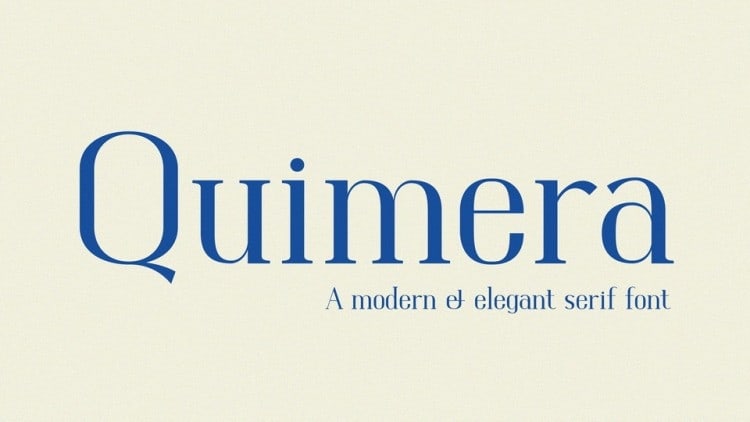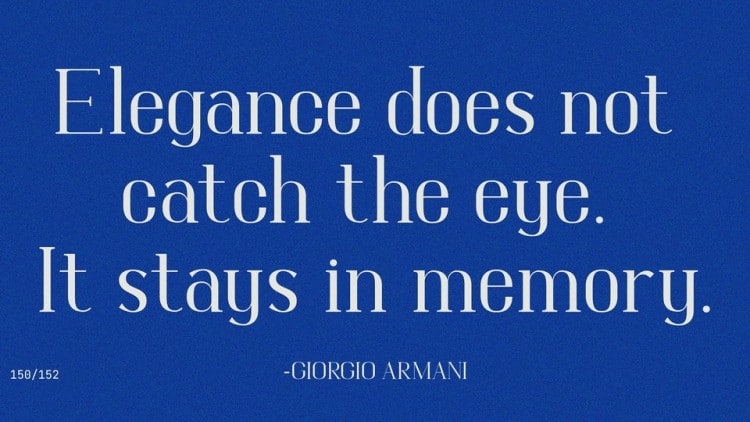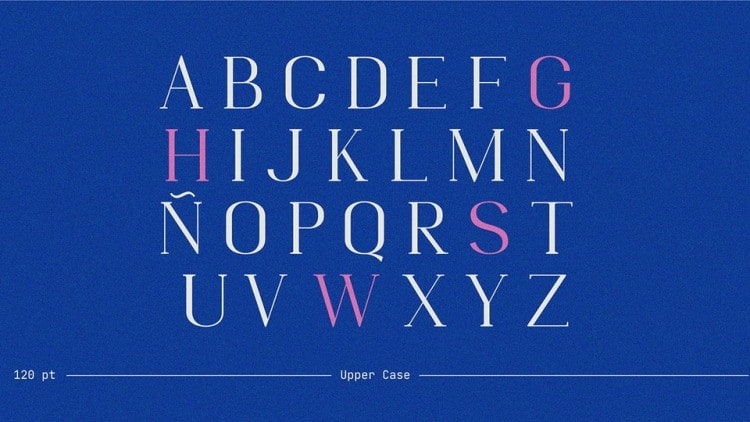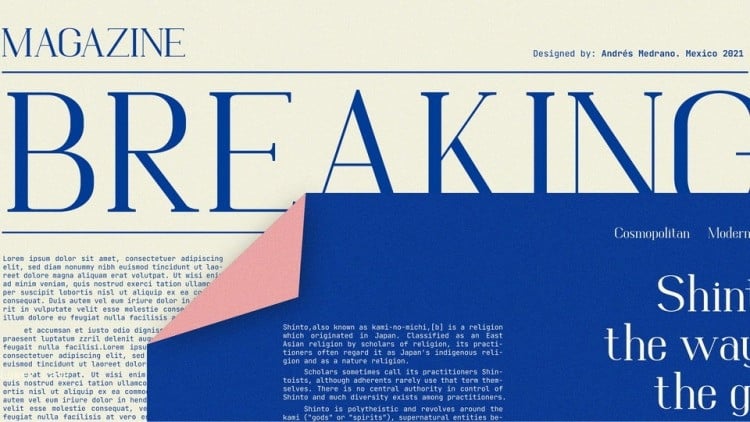
Quimera Serif Font is a retro and vintage serif font with a grotesk, humanist style. Included are basic latin and cyrillic. This font features characters in upper and lower case that will help you create unique luxurious designs with ease.
Quimera is great for editorial design, branding, product design and much more!